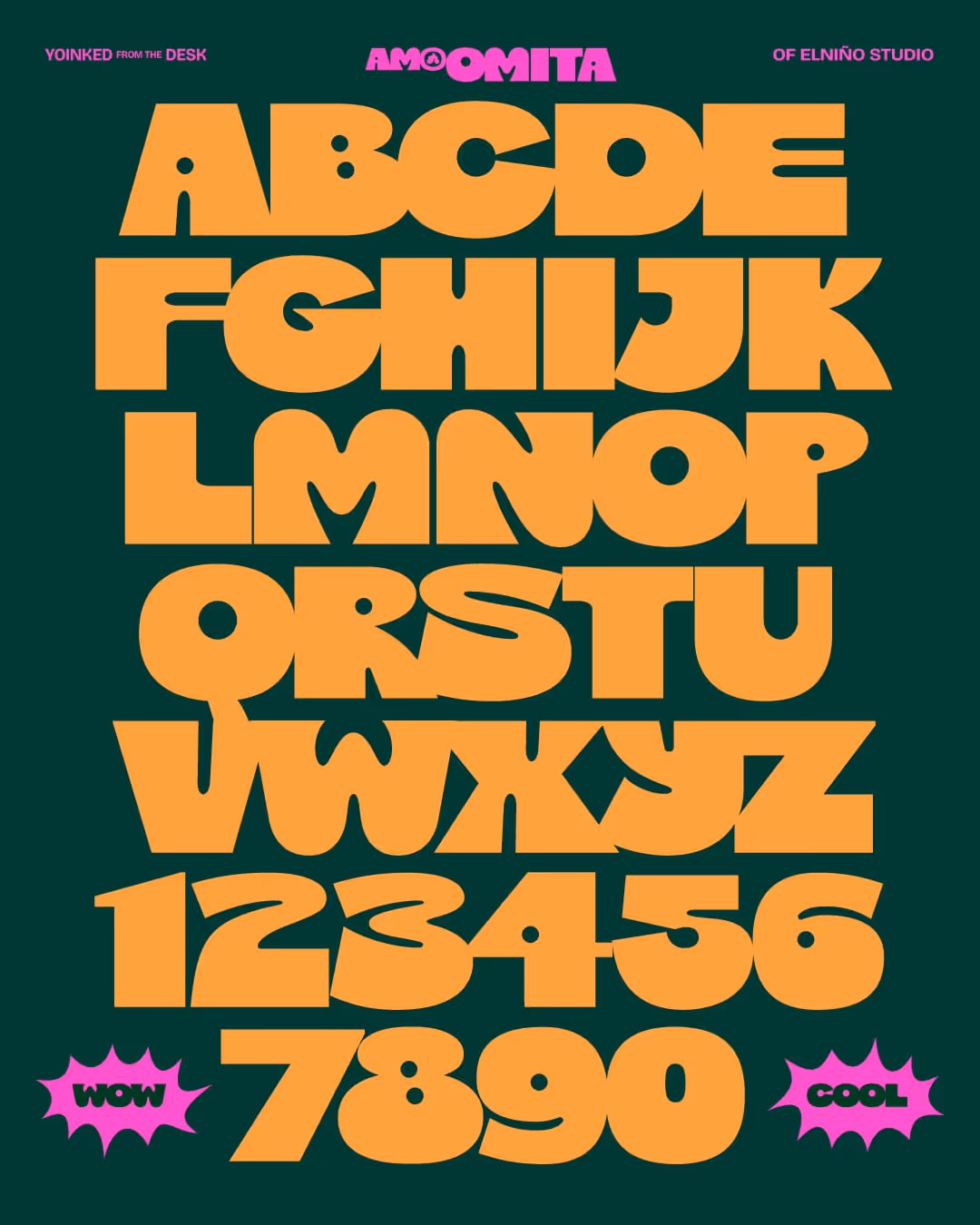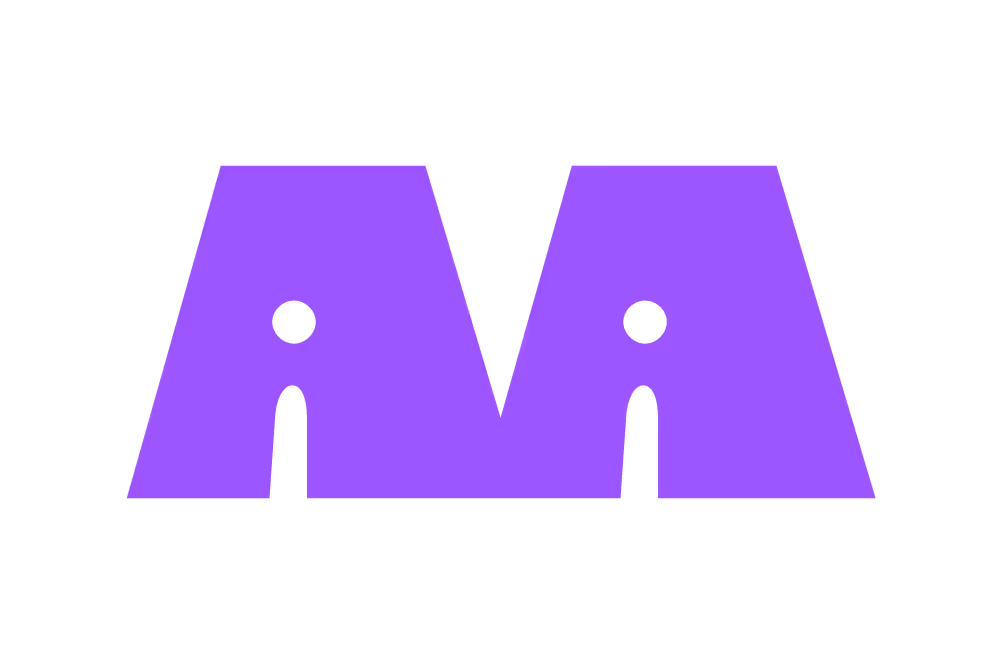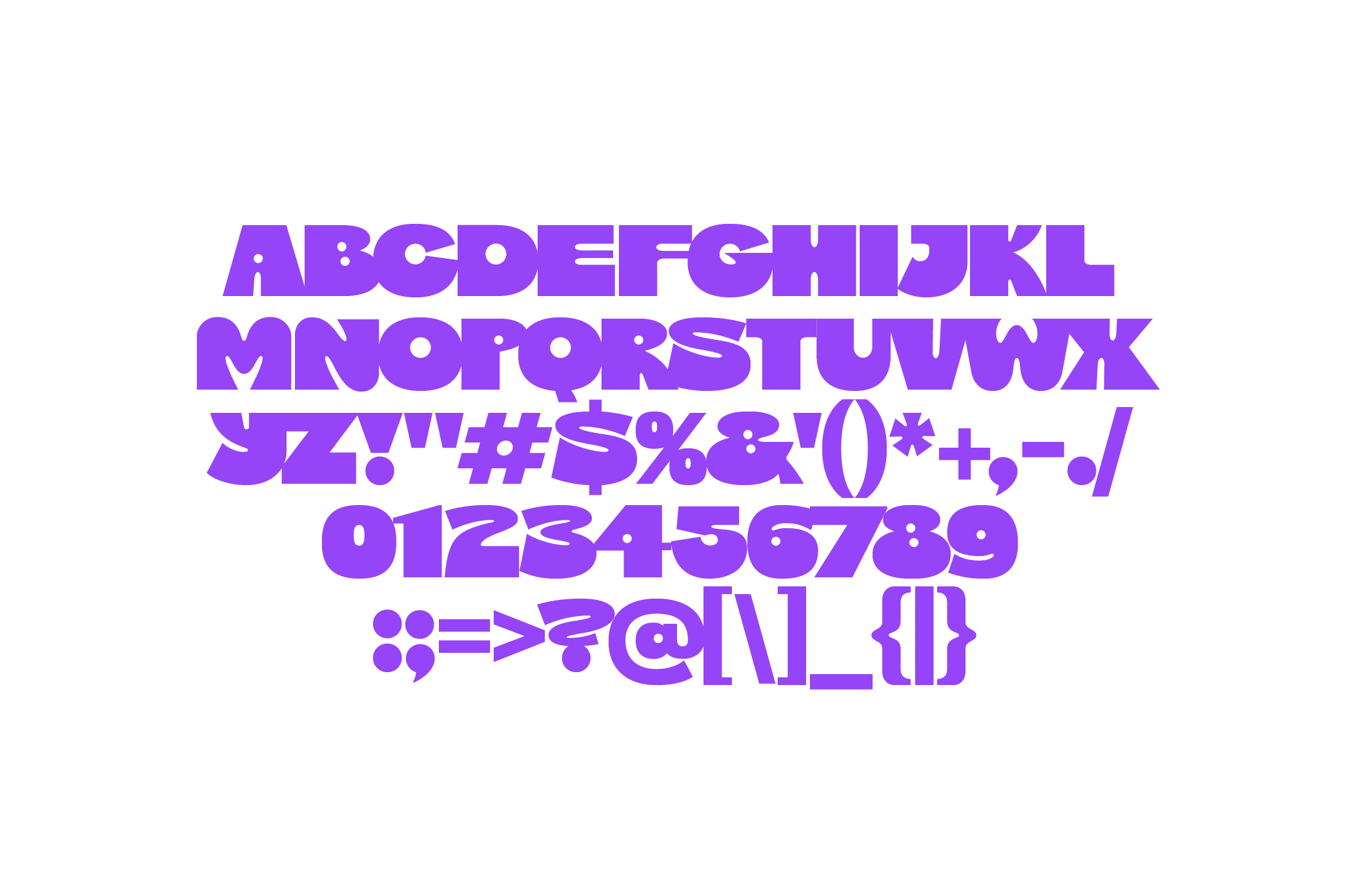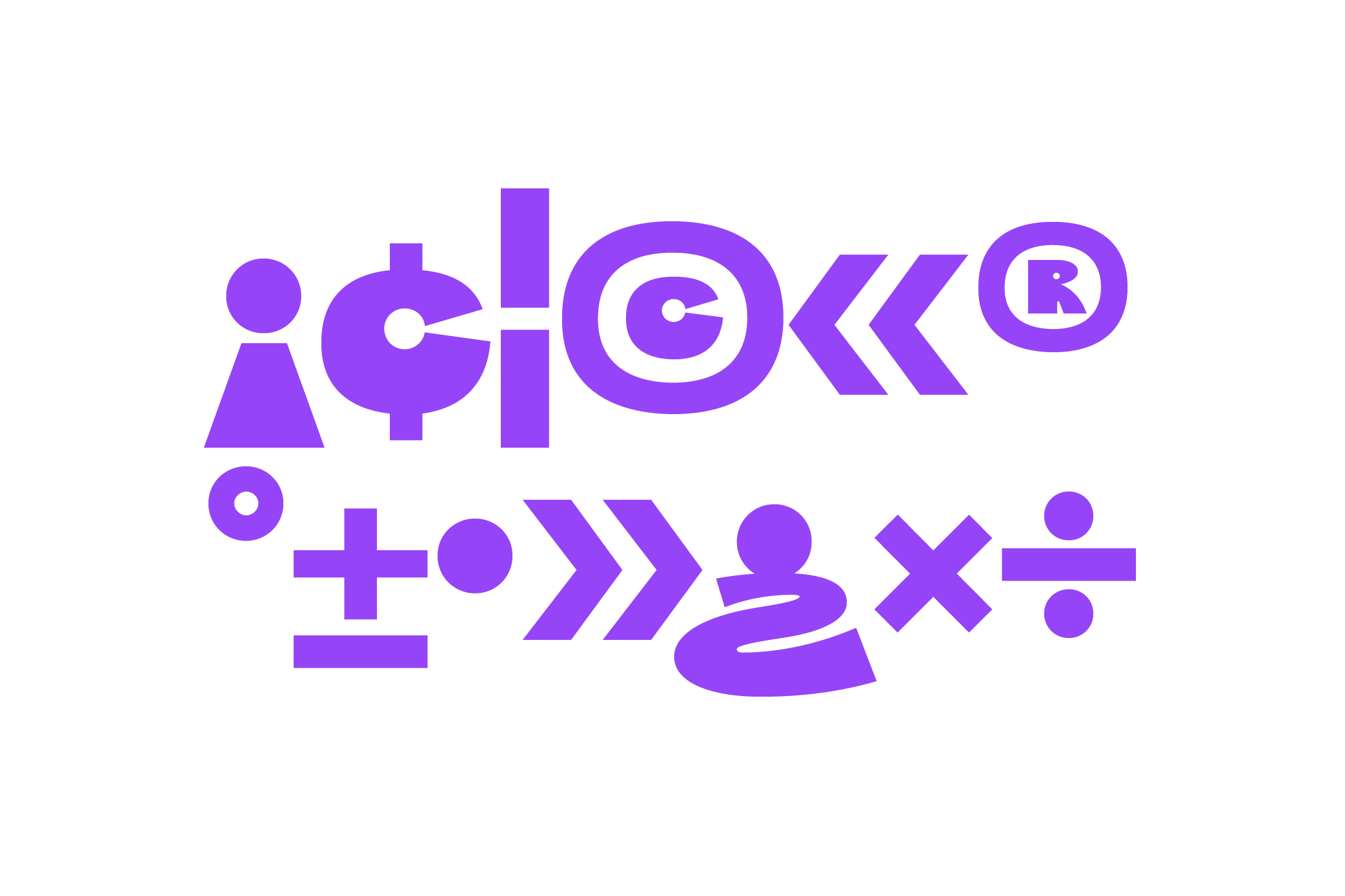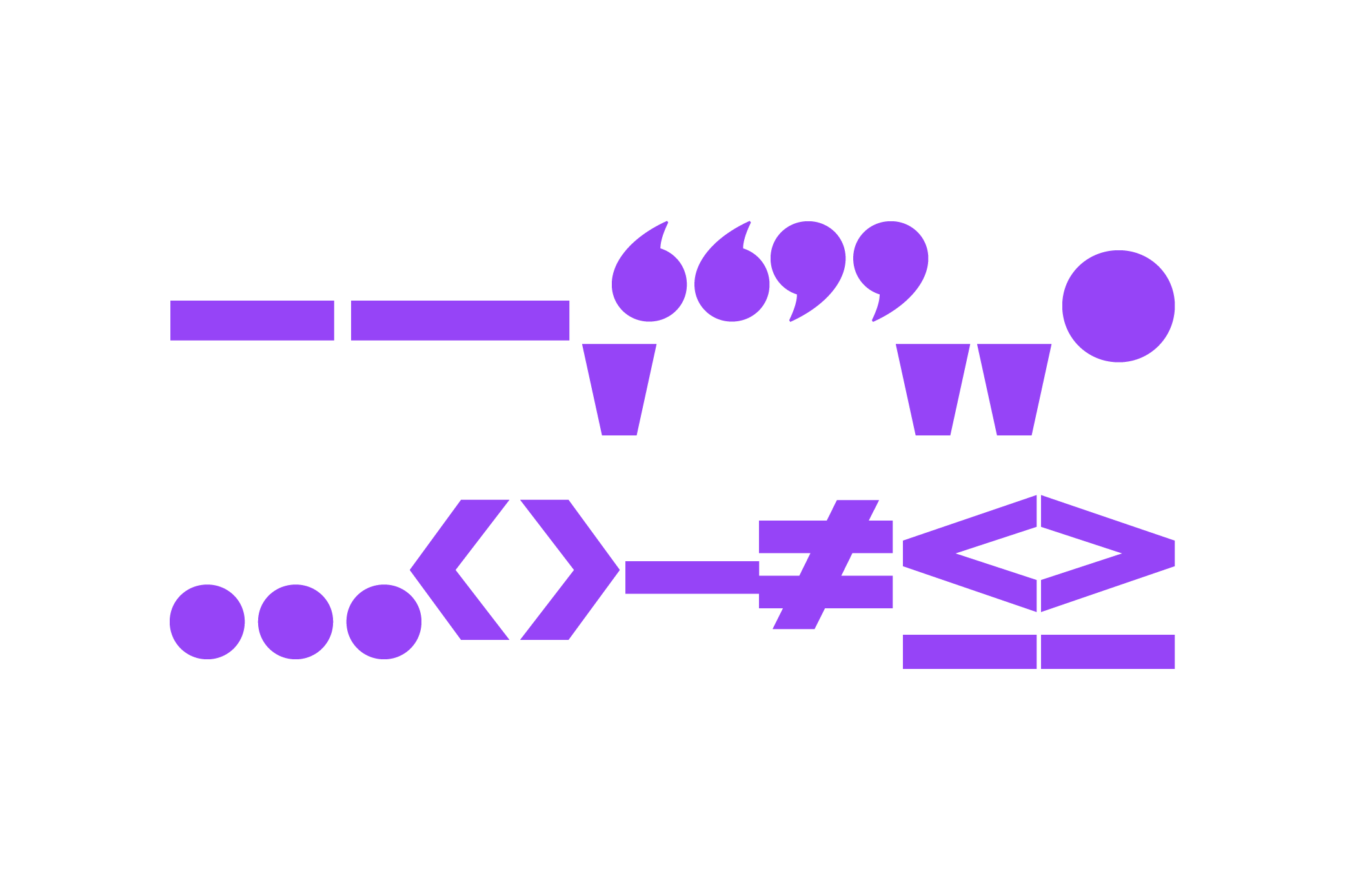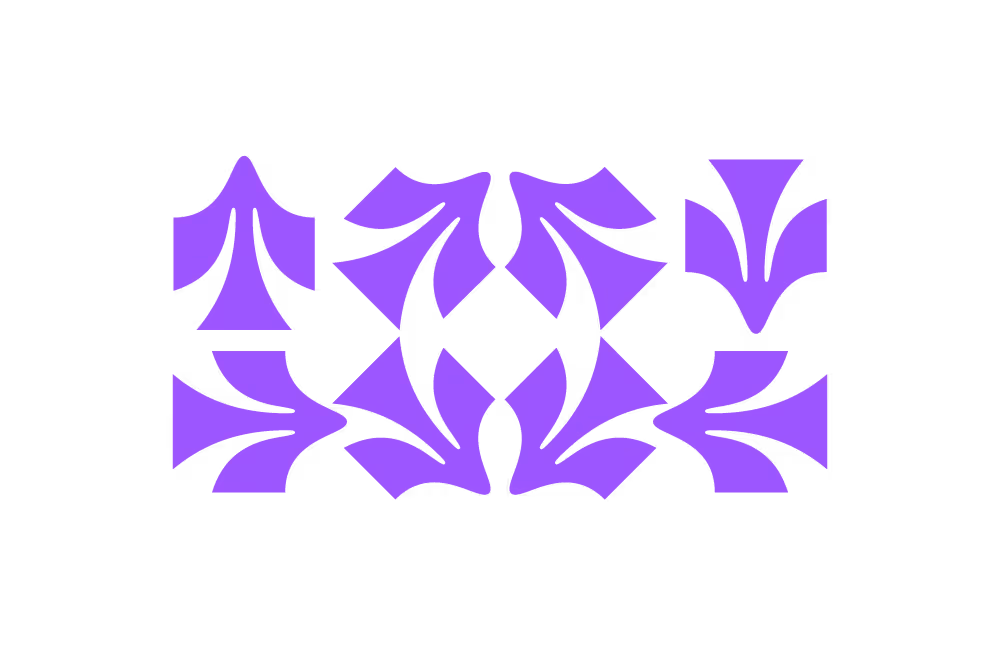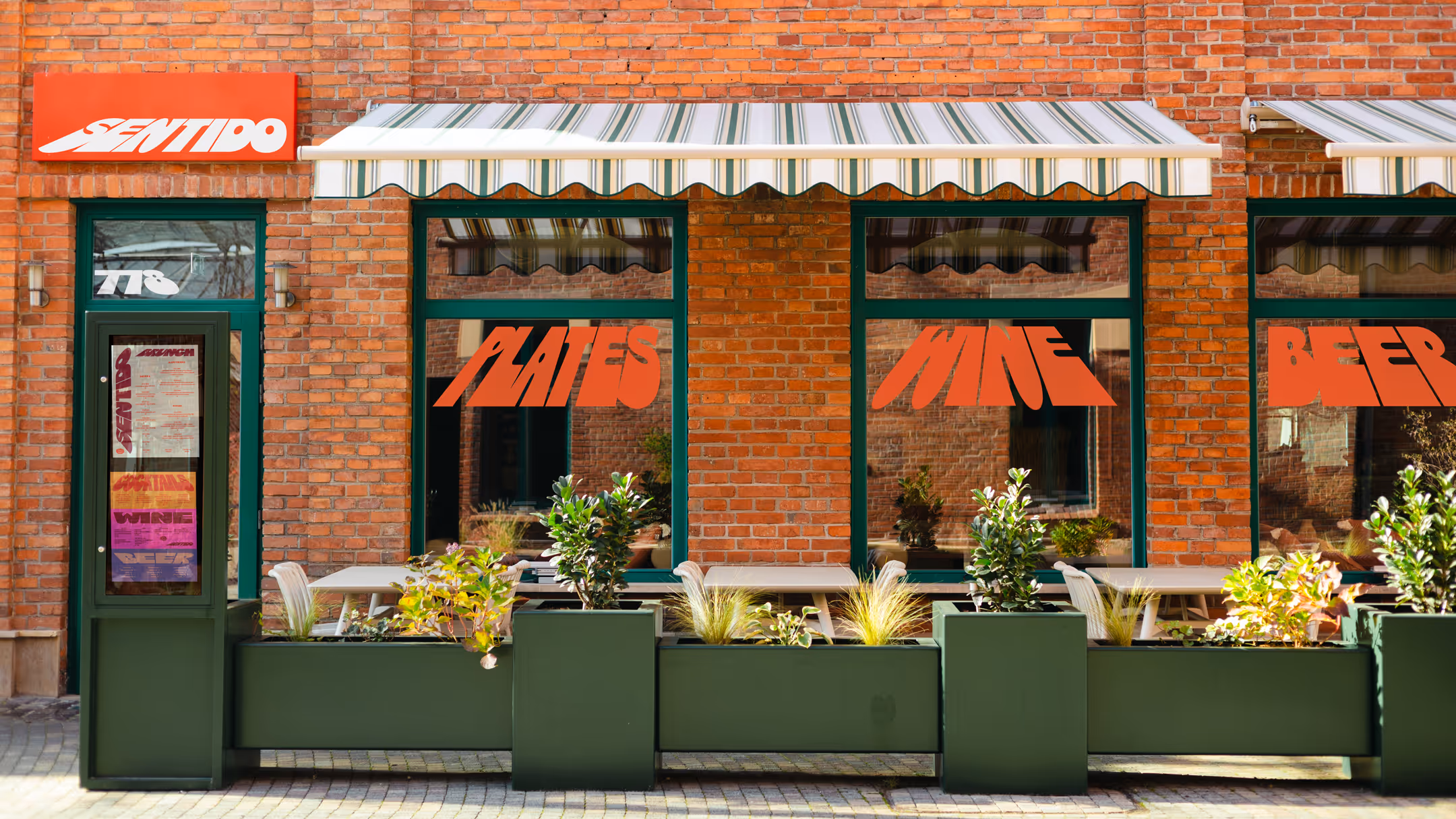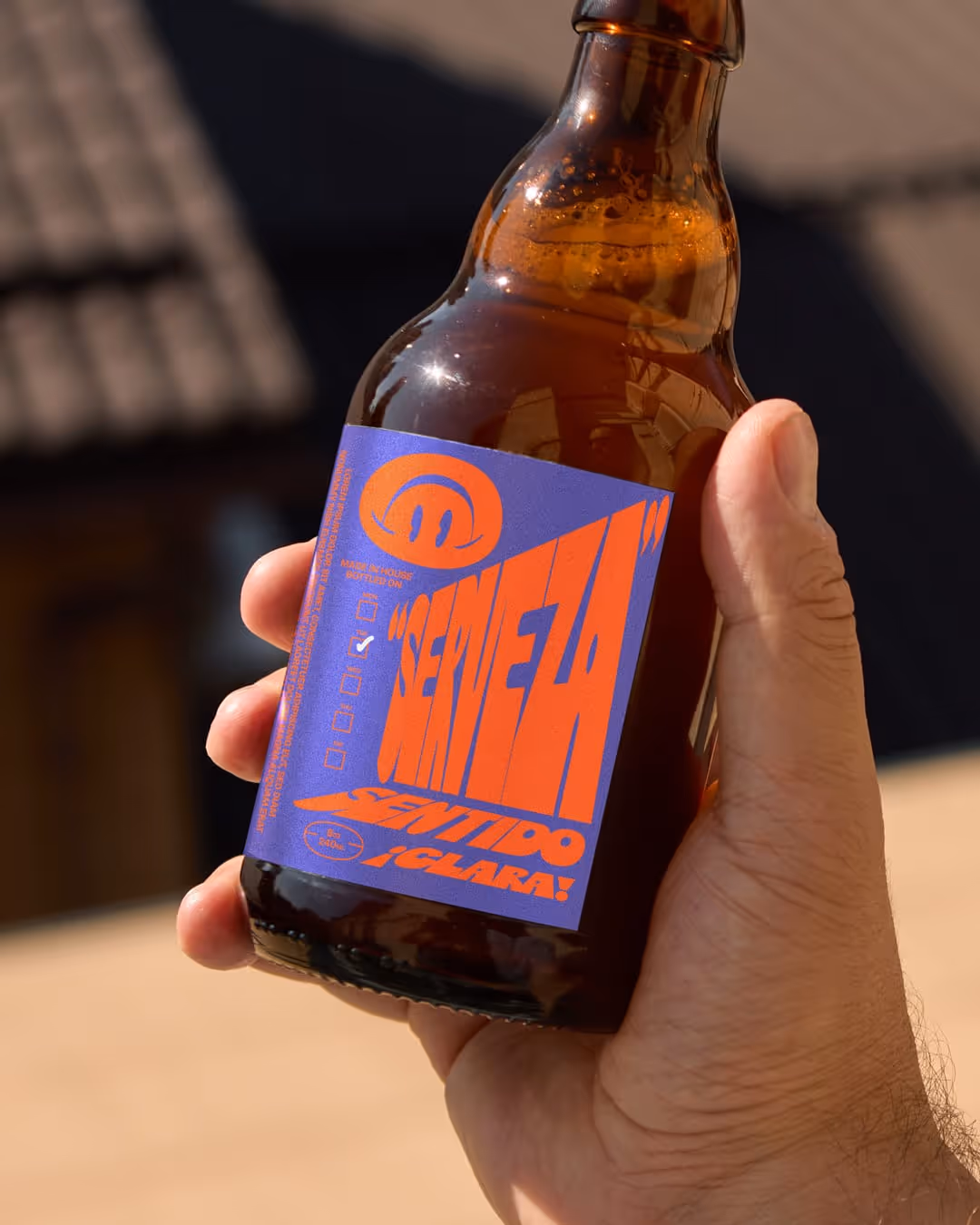
A font born after our daughter was born. Born to bring bubbly, goofy fun, and maybe add to her college fund.
“I Should Stretch More"
Stretch, warp, pinch, cat-cow, to achieve a whole different look—brand standards be damned.